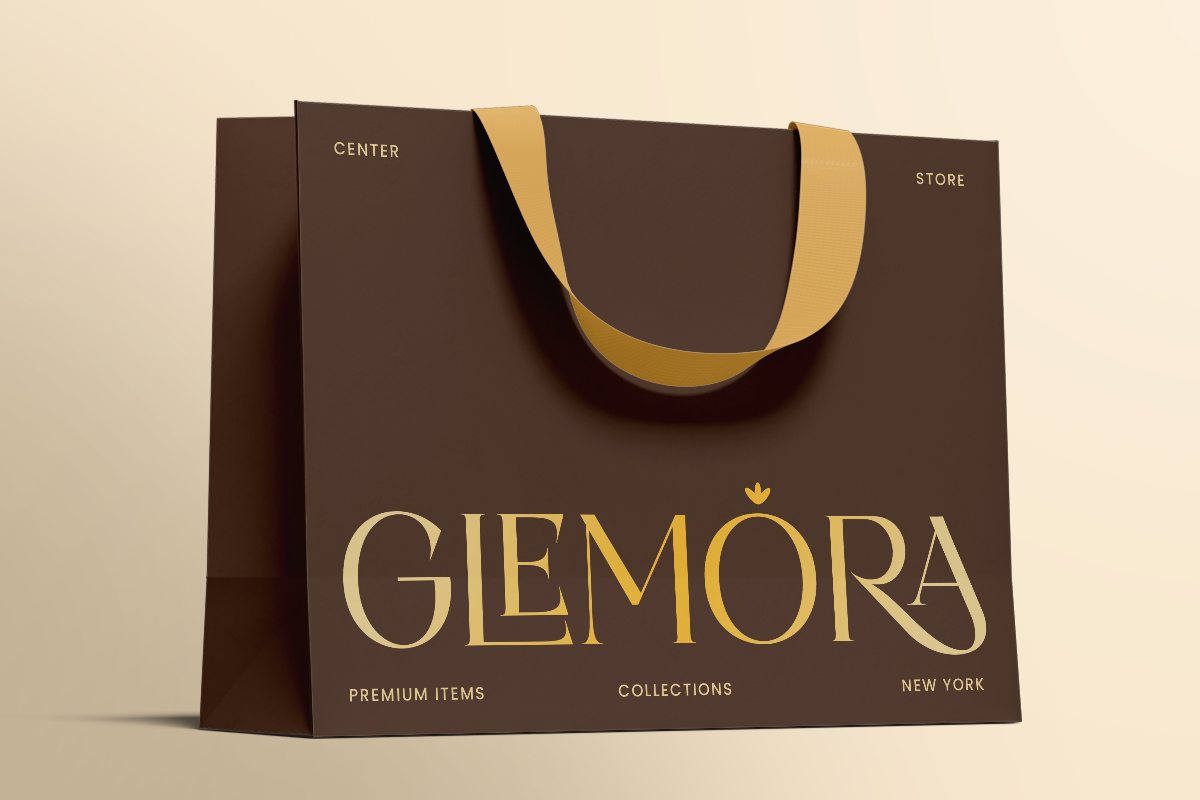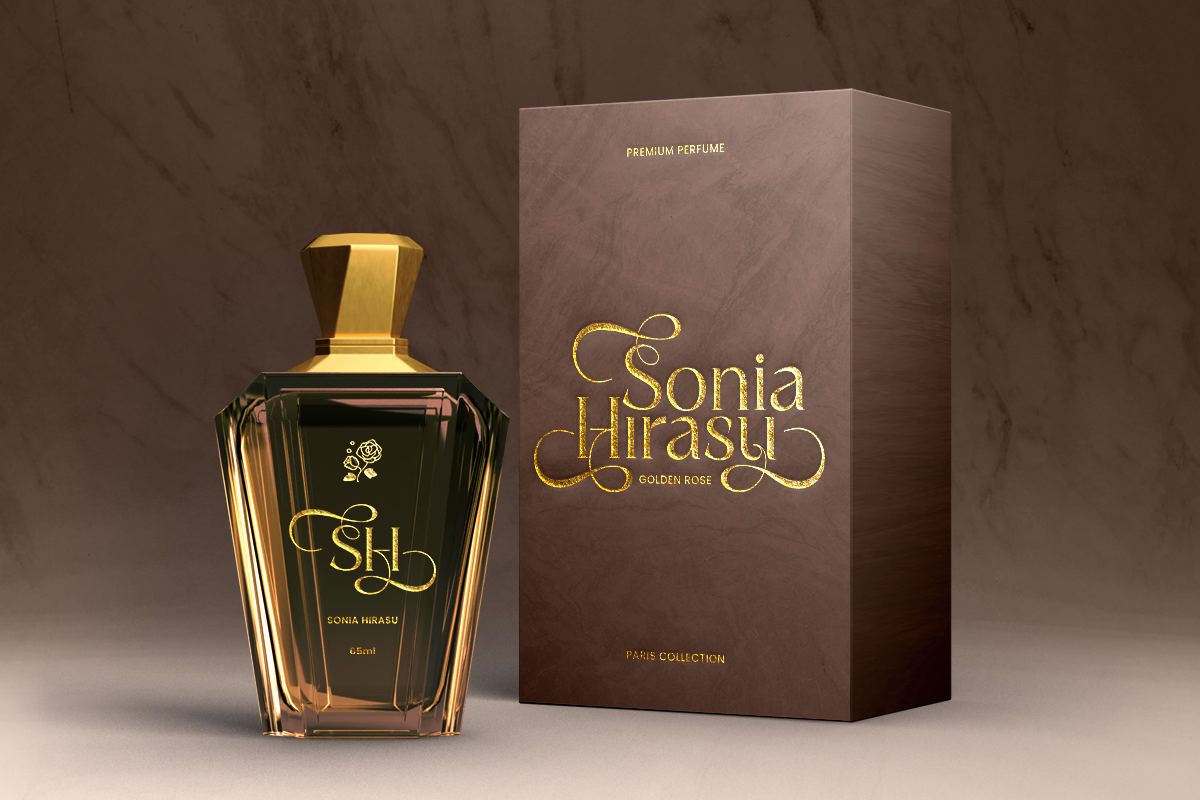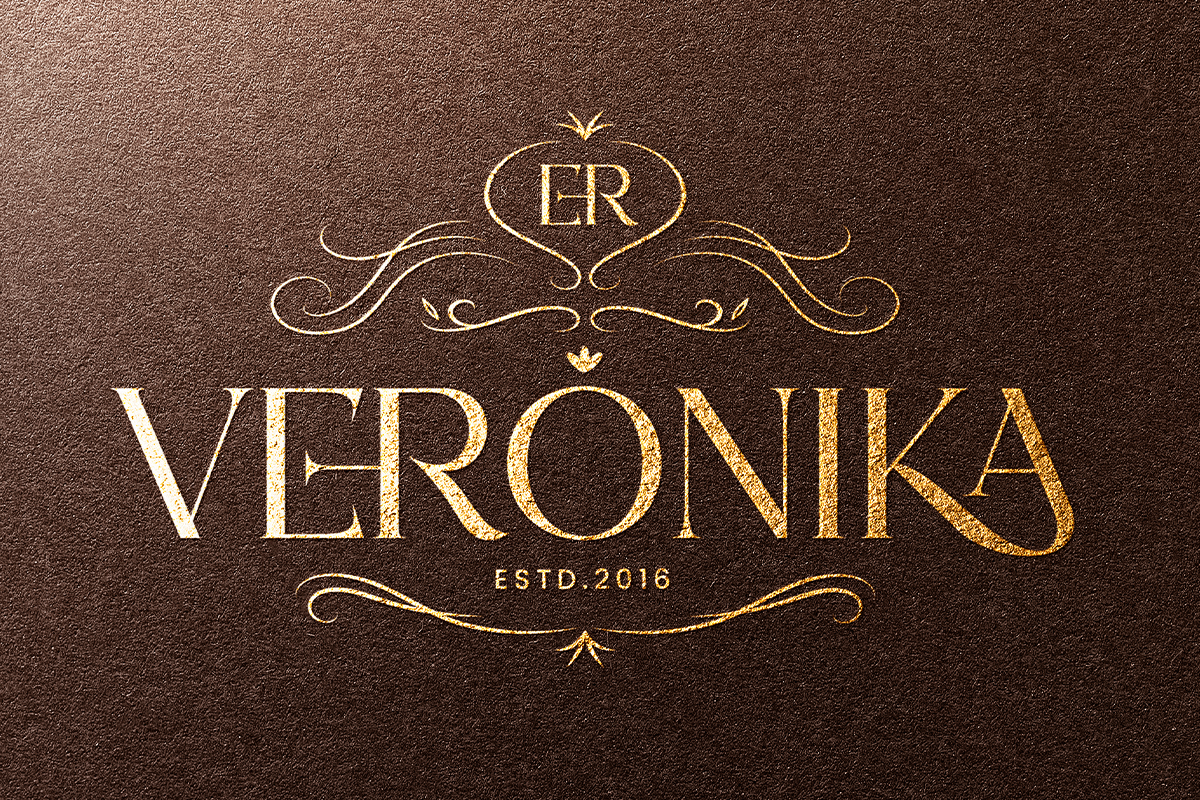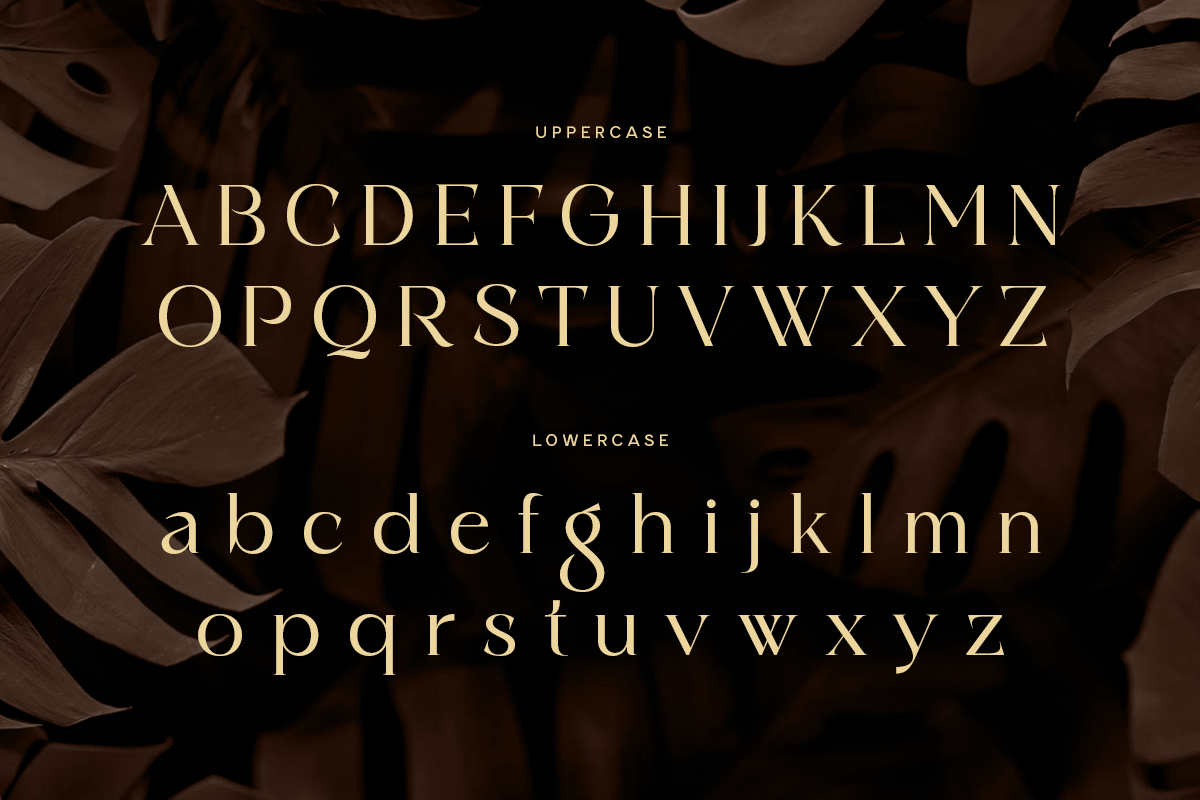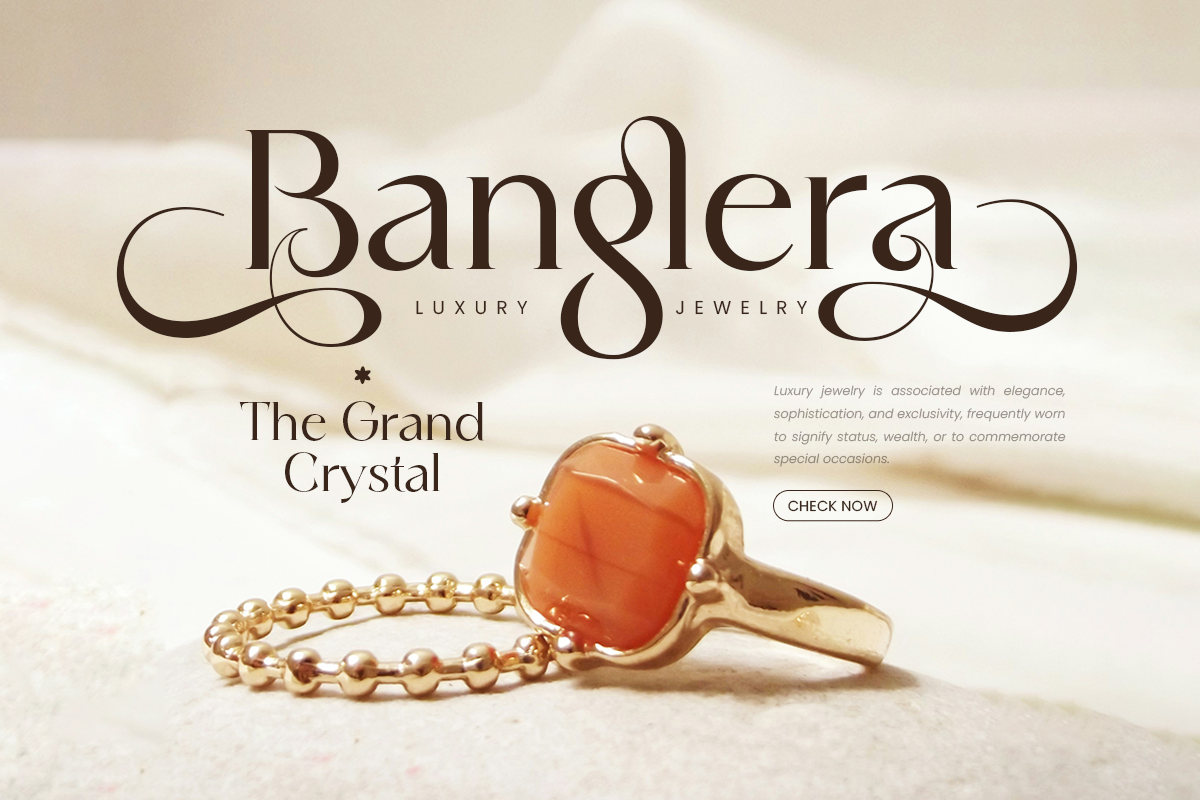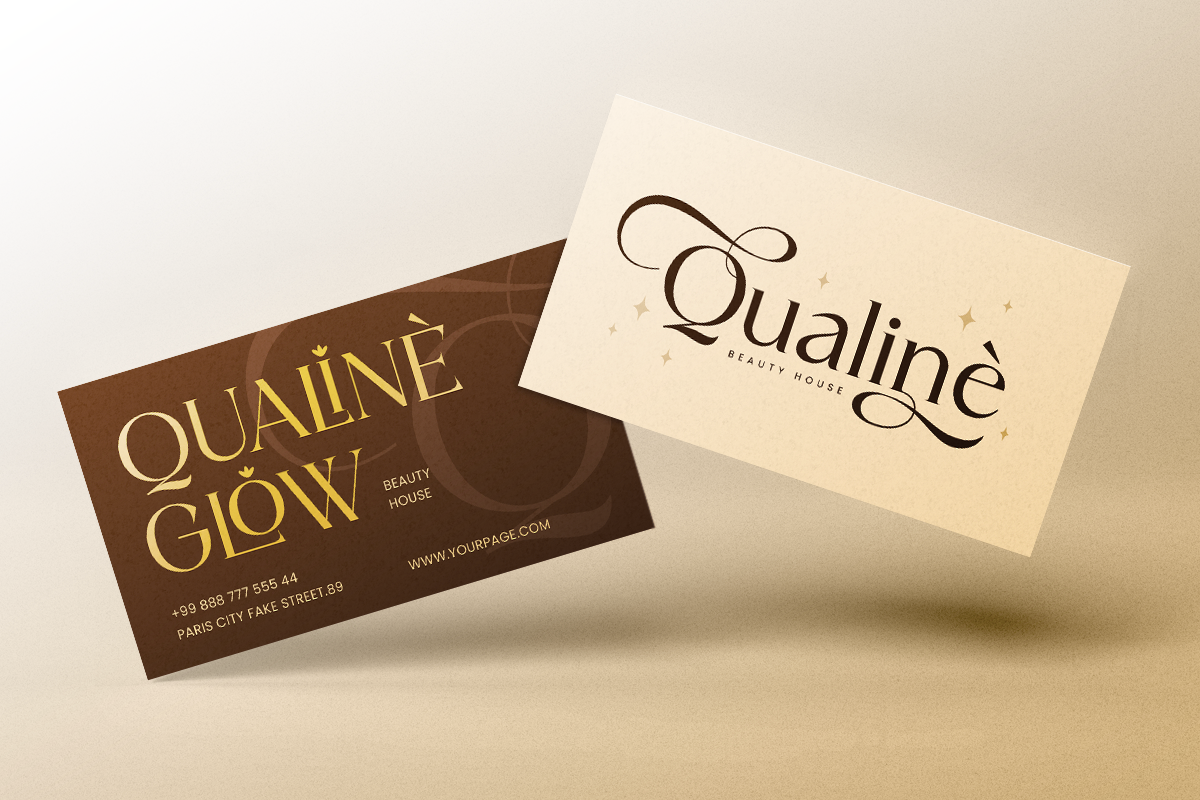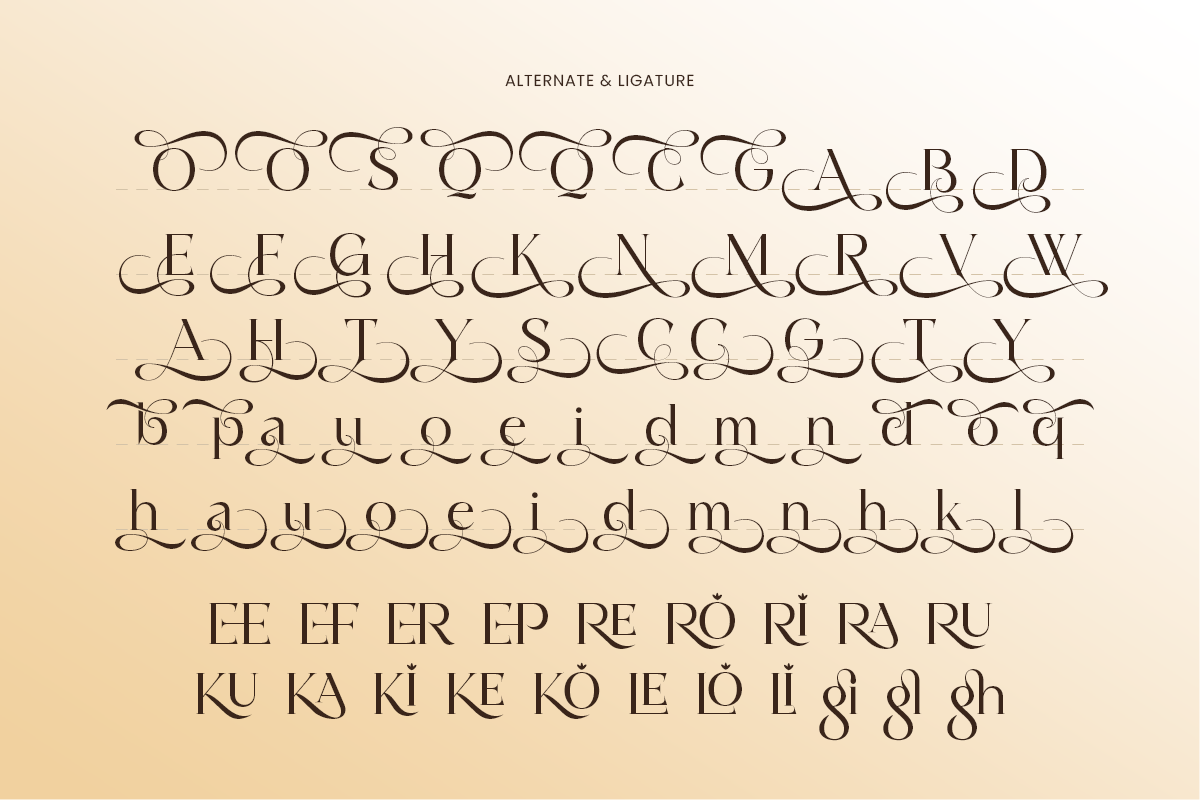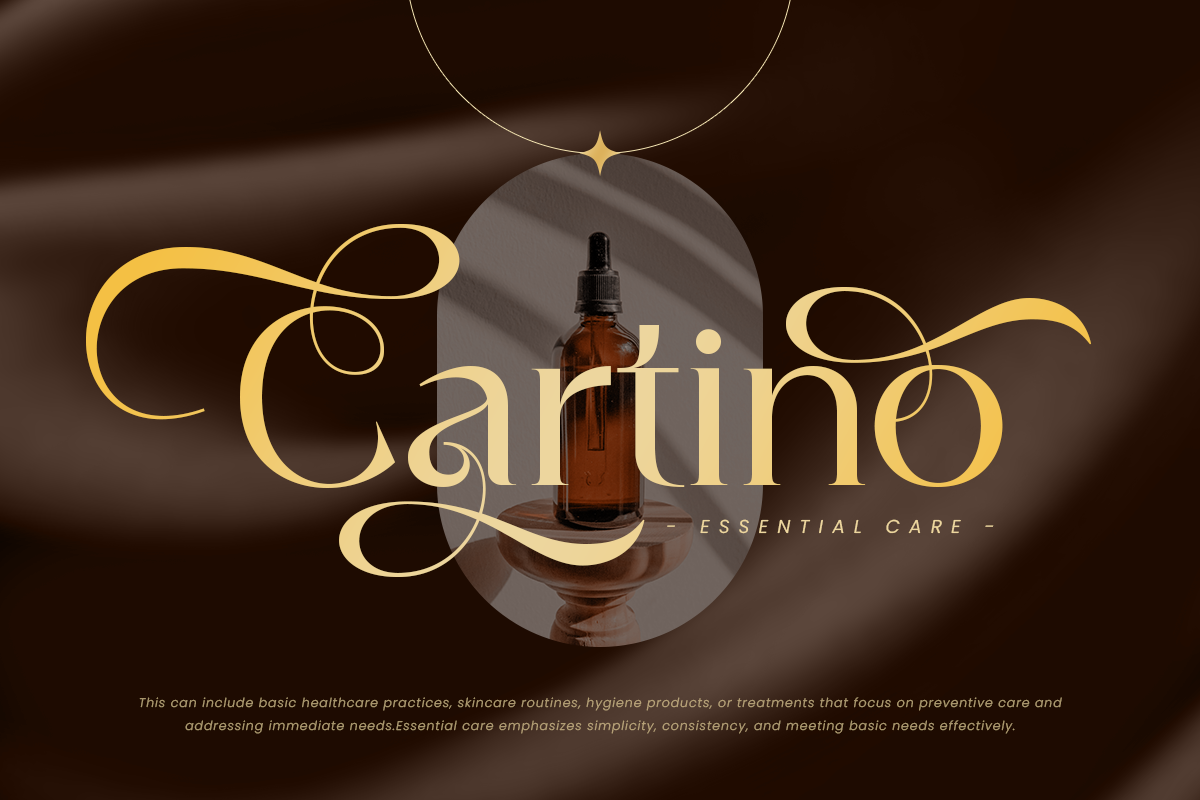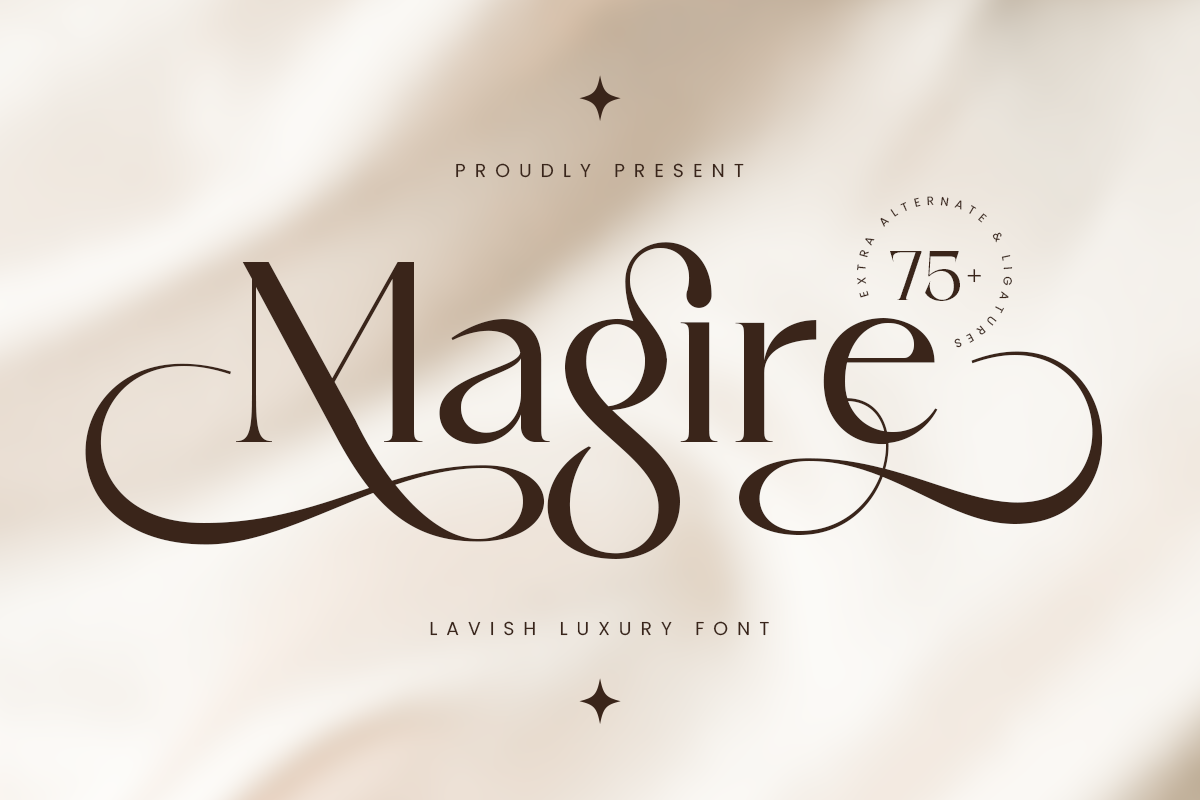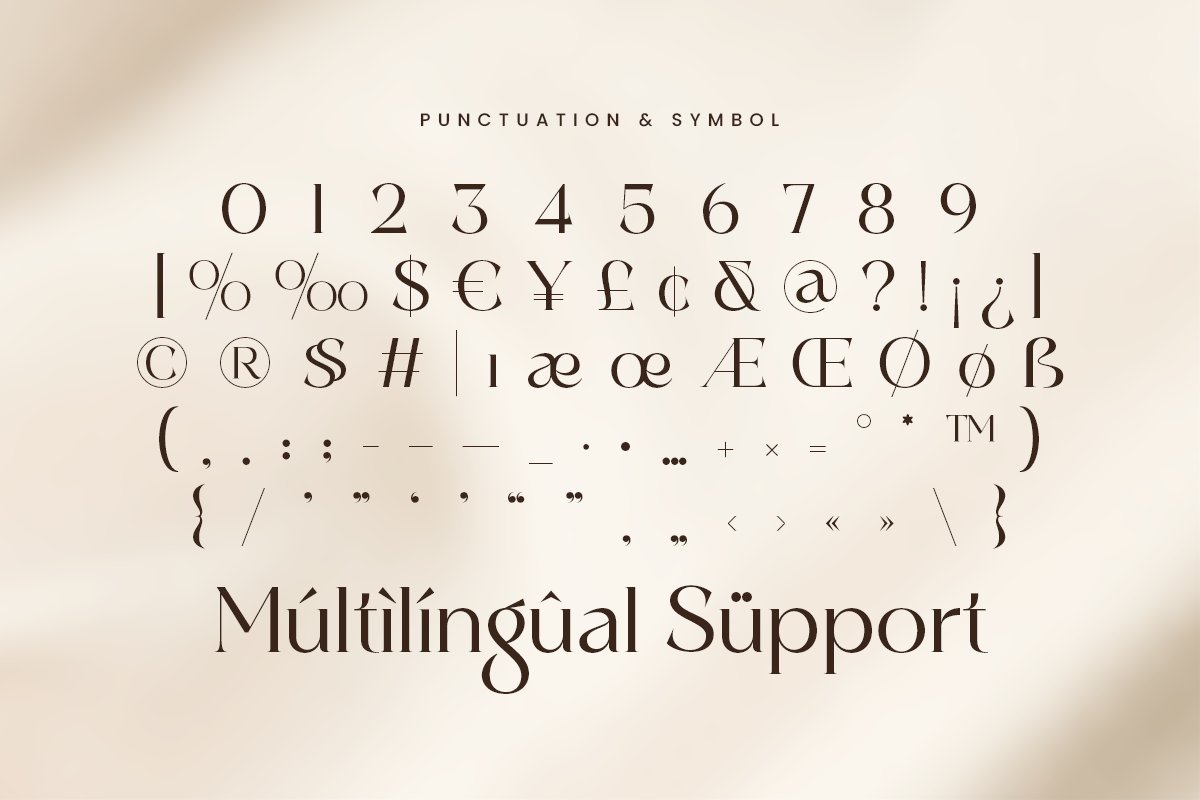
Magire - Lavish Luxury Font
Magire is a font designed for those who seek sophistication and elegance in every detail. Crafted with a sense of luxury in mind, its graceful curves and refined shapes give a timeless appeal that elevates any design. The font’s exquisite letterforms convey a sense of exclusivity, making it perfect for high-end branding, fashion, and luxury packaging.
Ideal for upscale projects such as logos, editorial design, and invitations, Magire brings a touch of refinement wherever it’s used. The balance of modern and classic elements ensures it fits seamlessly into any luxury design. Its versatility allows it to be used in both large headlines and delicate details, enhancing the visual experience.
Make your designs stand out with Magire, the lavish luxury font that brings a sense of grandeur and sophistication to your projects. Perfect for those who want to create an unforgettable, high-end impression.
Magire Lavish Luxury Font Features:
Alternates & Ligature Characters Ready
Punctuation, Number, and Symbol
Opentype Features
Multilingual Characters available for: Afrikaans, Albanian, Asu, Basque, Bemba, Bena, Breton, Chiga, Cornish, Dutch, English, Estonian, Filipino, Finnish, Friulian, Galician, German, Gusii, Indonesian, Irish, Italian, Kabuverdianu, Kalenjin, Kinyarwanda, Luo, Luxembourgish, Luyia, Machame, Makhuwa-Meetto, Makonde, Malagasy, Manx, Morisyen, North Ndebele, Nyankole, Oromo, Portuguese, Quechua, Romansh, Rombo, Rundi, Rwa, Samburu, Sango, Sangu, Scottish Gaelic, Sena, Shambala, Shona, Soga, Somali, Spanish, Swahili, Swedish, Swiss.